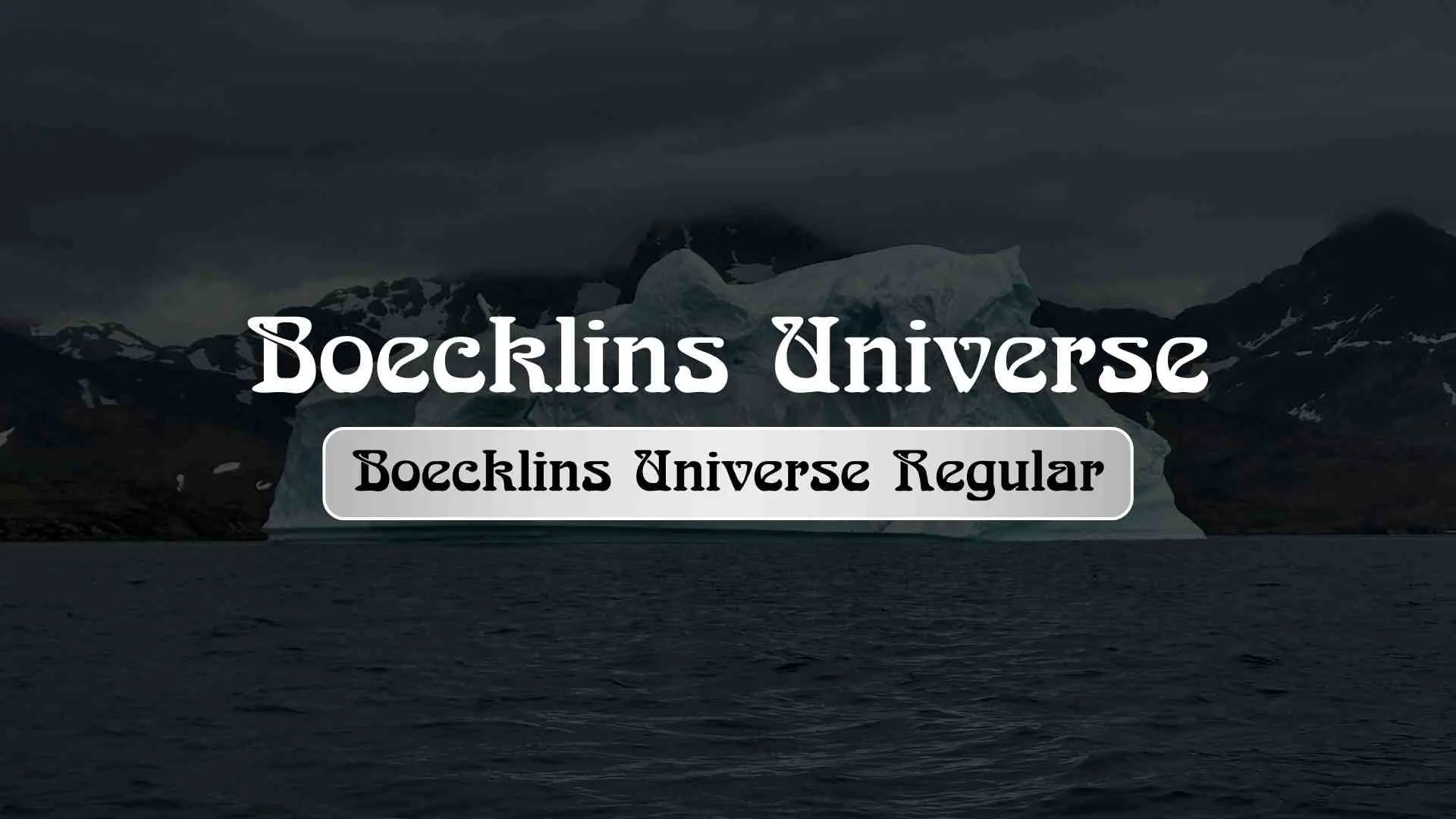
The font Boecklins Universe Regular, designed by Peter Wiegel, falls under the Display category & Boecklins Universe font family. Its smooth, flowing letterforms make it a versatile choice for projects that require both elegance and readability. Boecklins Universe is particularly well-suited for Branding, Logo, Poster, Headlines, Titles, Thematic Design and Event flyers. With its balance of simplicity and decorative appeal, this font brings a polished touch to both personal and professional designs.